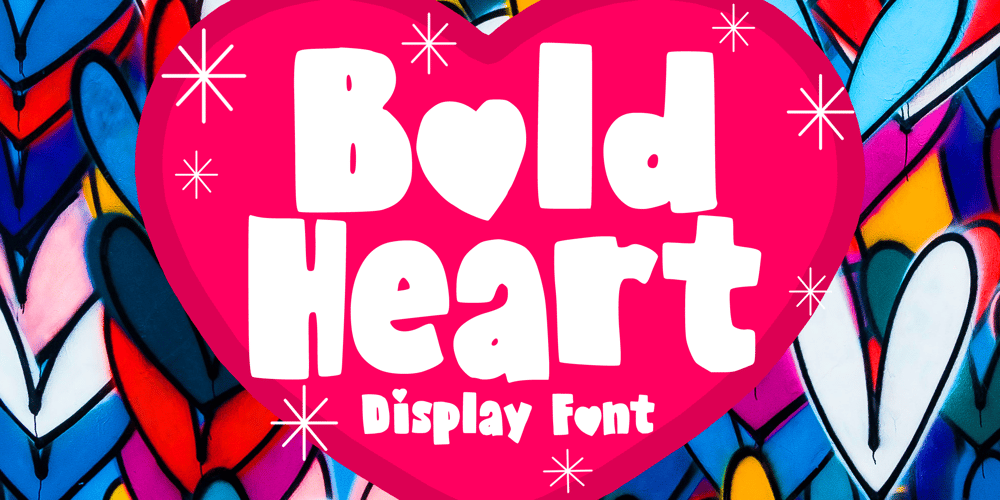
Bold Heart
Bold Heart font
Bold Heart Font Family was designed by Gabriel Valentinus and published by Mvmet. Bold Heart contains 1 styles and family package options. Bold Heart is a bold and fun handwritten font that you can use it for anything ranging from t-shirts, book designs, packaging, and greeting cards to stickers and posters, or anything that needs a casual touch, it will be your perfect font to pick if you want to use it for Valentine. Fall in love with its incredibly versatile style, and use it to create lovely designs!